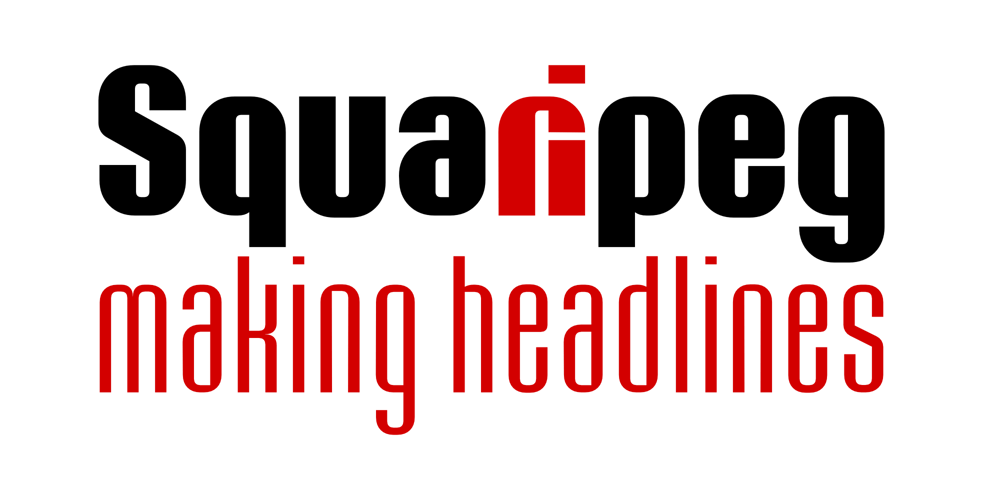
Squaripeg Font Family was designed by Andy Peat and published by Andy Peat. Squaripeg contains 8 styles and family package options. About this font familySquaripeg is a funky square typeface with geometric shapes to create impactful headlines and web banners.This typeface was designed so that it takes up less horizontal space but still has a lot of prominence on the page. Some letters have been combined into one unit to save further space.Features8 weights (from thin to black)Multi languageLigaturesTo be able to access alternative fonts, make sure the software you use can support opentype features such as Microsoft Word, Paint, Adobe, Corel draw, Cricut and other applications.Designed and published by Andy Peat.Released April 2022